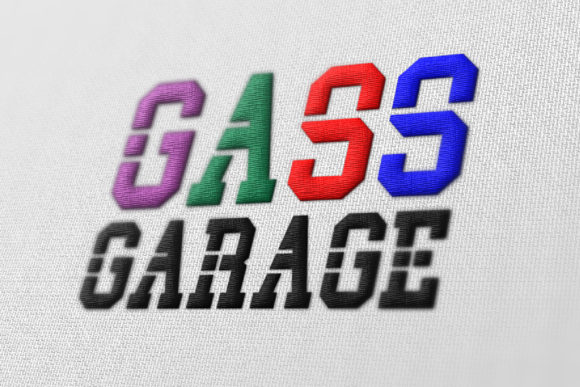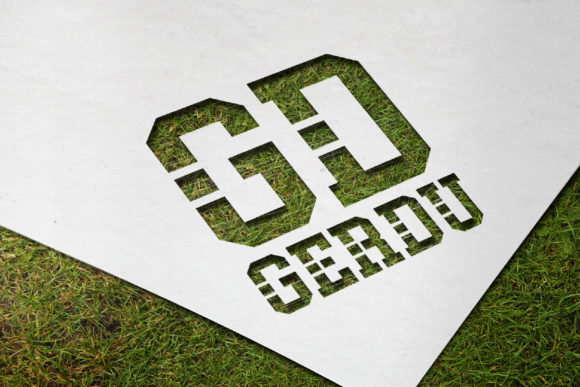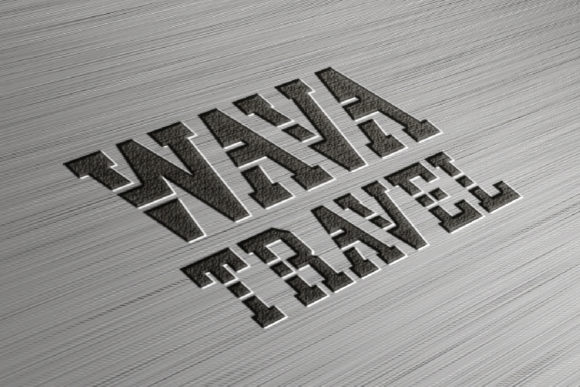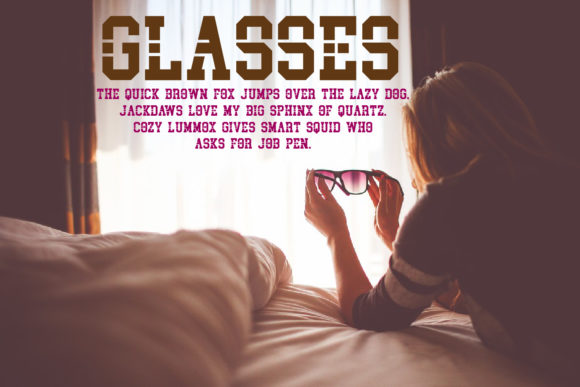
Introducing Analyst Font: Elevate Your Designs with Elegance and Sophistication
Are you a designer or crafter looking for a font that can add a touch of elegance and sophistication to your work? Look no further than Analyst Font. This beautiful serif font is designed to inspire and help you create stunning designs that stand out from the crowd.
What Makes Analyst Font Unique?
Analyst Font is an elegant serif font that boasts unique characters, making it perfect for designers who want to add a personal touch to their work. Its distinctive elements are carefully crafted to provide a sophisticated and refined look that will elevate your designs to the next level.
Whether you’re working on a branding project, creating a stunning poster, or designing a beautiful website, Analyst Font is the perfect choice. Its versatility and flexibility make it suitable for a wide range of design applications.
Beautiful Elements to Inspire Your Creativity
Analyst Font is more than just a font – it’s a design tool that can inspire your creativity and help you turn your ideas into reality. Its beautiful elements, such as the elegant serifs and unique character designs, are carefully crafted to provide a visually appealing look that will capture your audience’s attention.
With Analyst Font, you can add a touch of sophistication and elegance to your designs, making them stand out in a crowded market. Whether you’re designing for print or digital, this font is sure to impress.
Turn Any Design Idea into a Standout
Analyst Font is designed to help you turn any design idea into a standout. Its unique characters and elegant serifs provide a versatile and flexible design tool that can be used to create a wide range of designs.
Whether you’re a seasoned designer or a crafty DIY enthusiast, Analyst Font is the perfect choice for anyone looking to create stunning designs that capture their audience’s attention. With this font, you can:
- Create stunning posters and flyers that grab attention
- Design beautiful websites and blogs that stand out
- Develop eye-catching branding and marketing materials
- Make unique and stylish craft projects, such as handmade cards and invitations
Key Features of Analyst Font
Analyst Font comes with a range of key features that make it the perfect choice for designers and crafters. Some of its key features include:
- Elegant serif design with unique characters
- Versatile and flexible design suitable for a wide range of applications
- Beautiful elements, such as elegant serifs and character designs
- Supports multiple languages
Tips for Using Analyst Font
To get the most out of Analyst Font, here are some tips for using it in your designs:
- Use it as a headline font to add a touch of elegance and sophistication
- Pair it with a sans-serif font for a stylish and modern look
- Experiment with different font sizes and colors to add depth and interest
- Use it consistently across your design to create a cohesive look
Analyst Font is an elegant serif font with unique characters that can add a touch of sophistication and elegance to your designs. With its beautiful elements and versatile design, it’s the perfect choice for designers and crafters looking to create stunning designs that stand out.
Whether you’re working on a branding project, creating a stunning poster, or designing a beautiful website, Analyst Font is the perfect choice. So why wait? Get inspired by its beautiful elements and turn any design idea into a standout with Analyst Font.